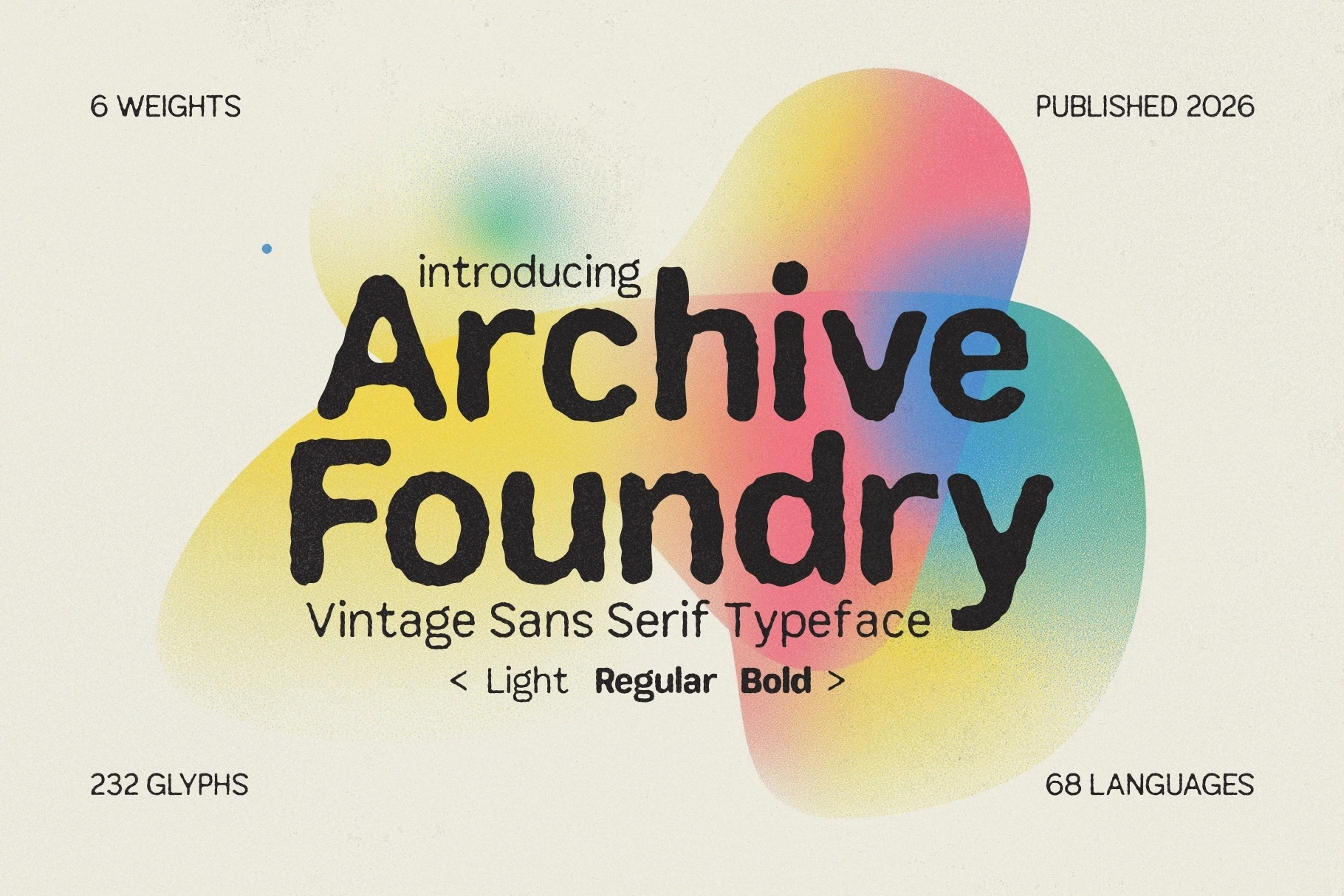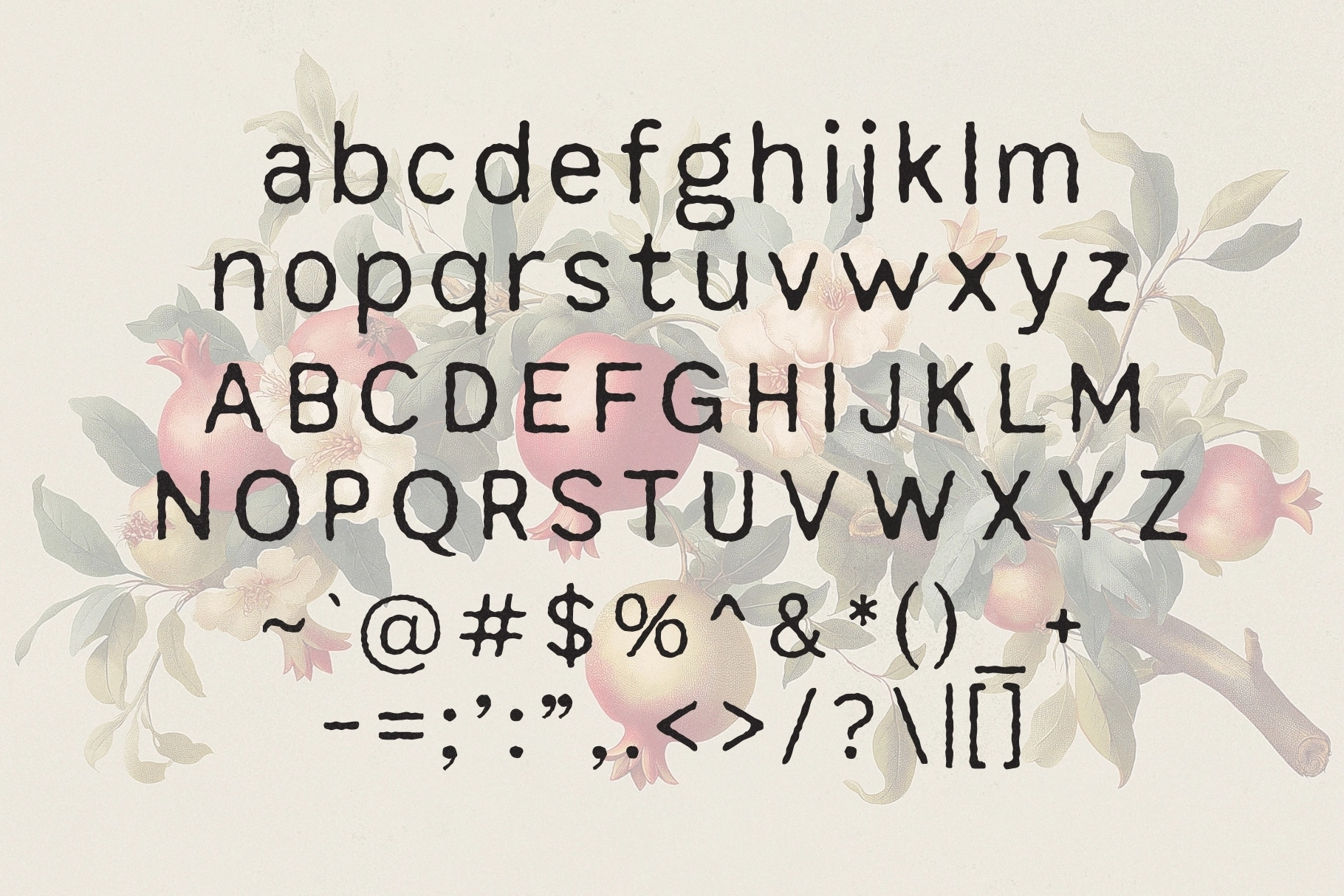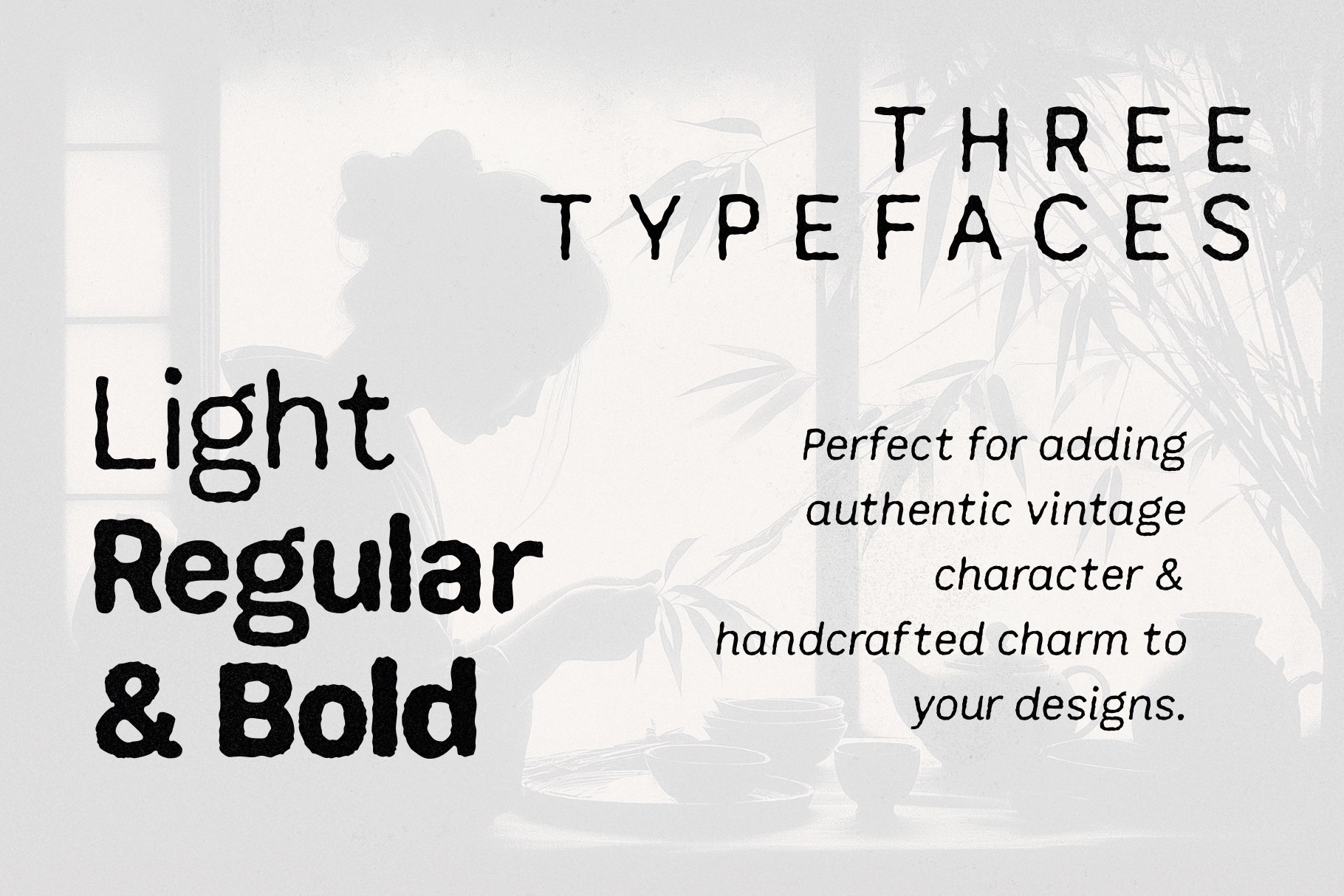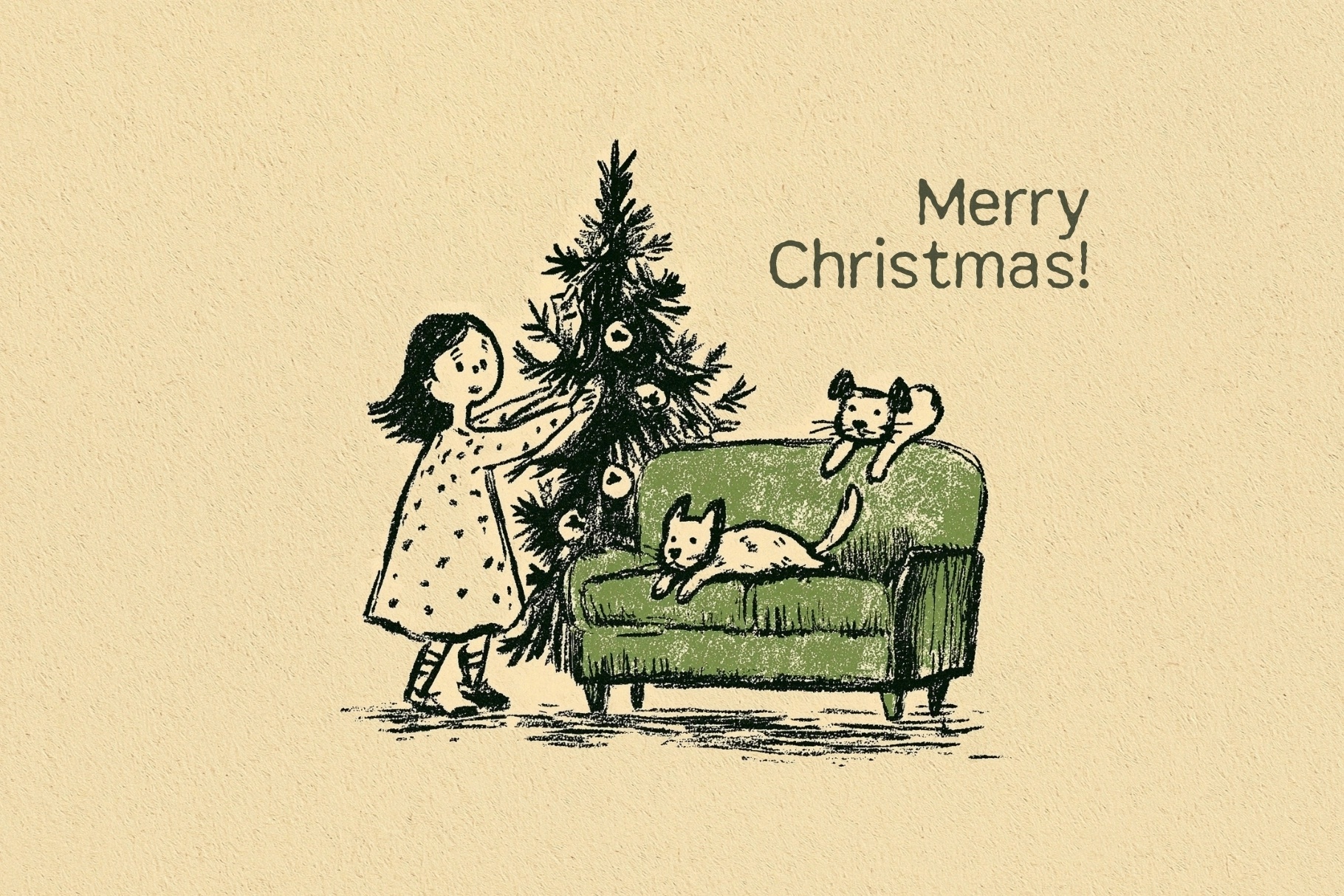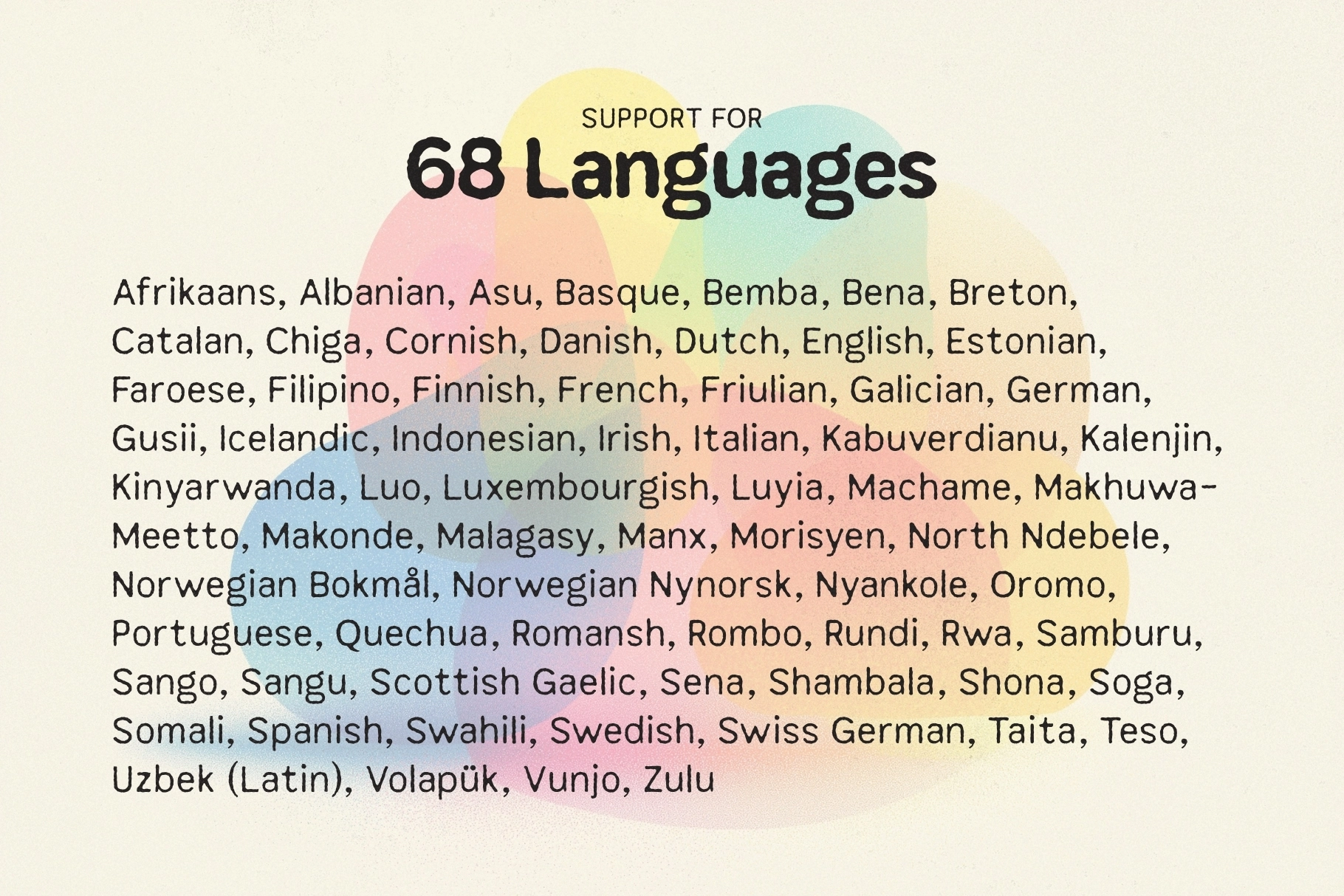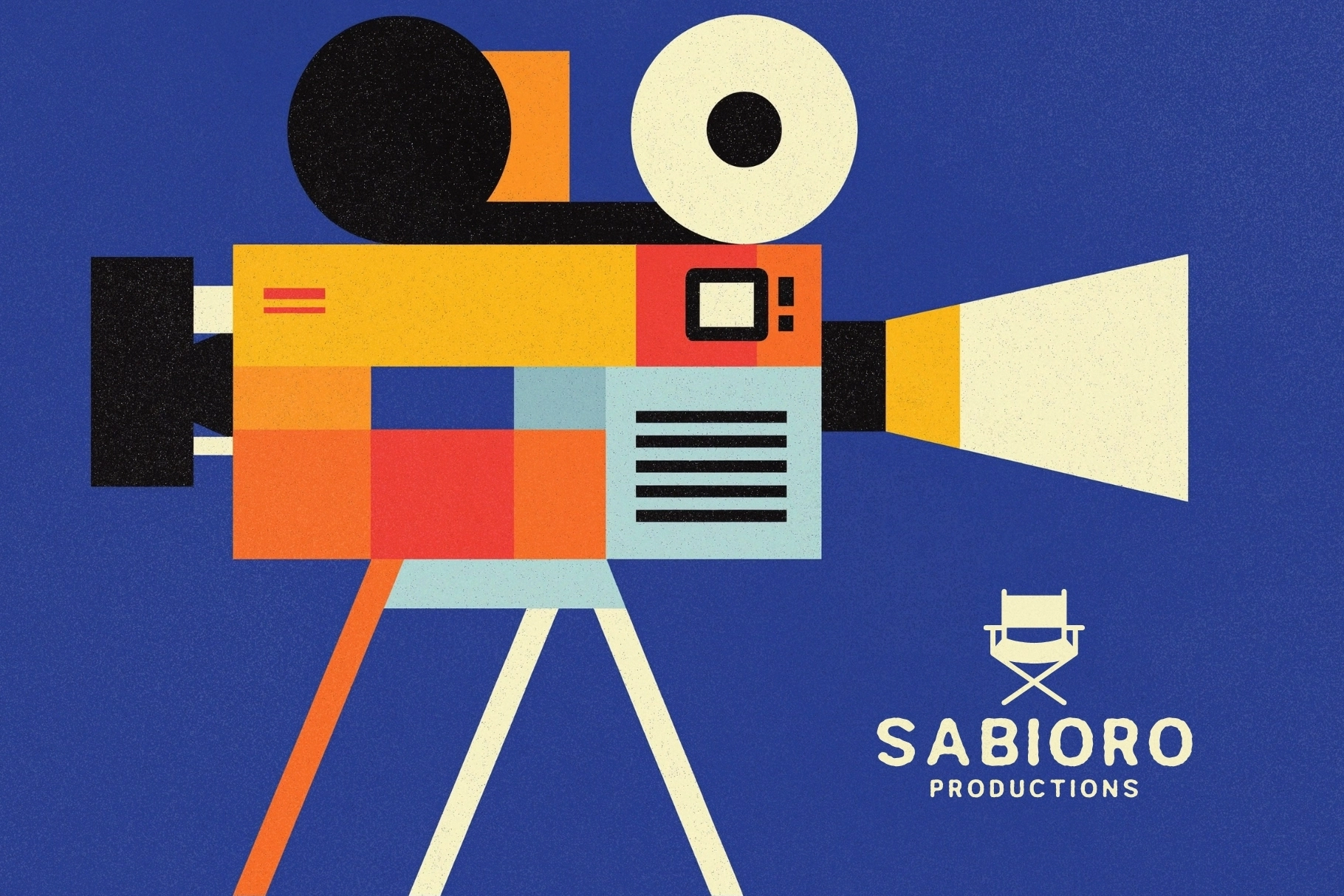
Archive Foundry - Vintage Hand Drawn Font
Archive Foundry - Vintage Hand Drawn Font is a versatile typeface that blends modern clarity with subtle rustic character. Inspired by vintage archives and timeless editorial design, it delivers a balanced typographic voice that feels both contemporary and authentically nostalgic.
With six carefully crafted weights, Archive Foundry offers flexibility for strong visual hierarchies while maintaining a cohesive and elegant look. Perfect for branding, publishing, and refined layouts, it performs beautifully in both headlines and body text, bringing a clean yet warm personality to every project.
- 6 Weights (Light, Regular, Bold)
- 232 Glyphs
- Multilingual Support (68 Languages)